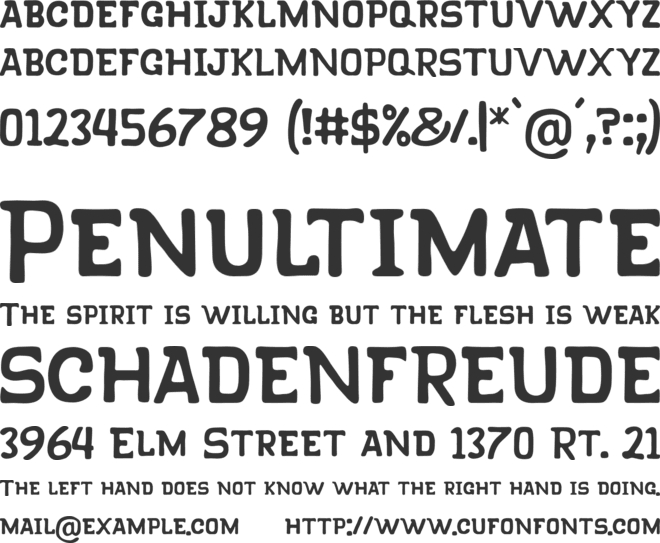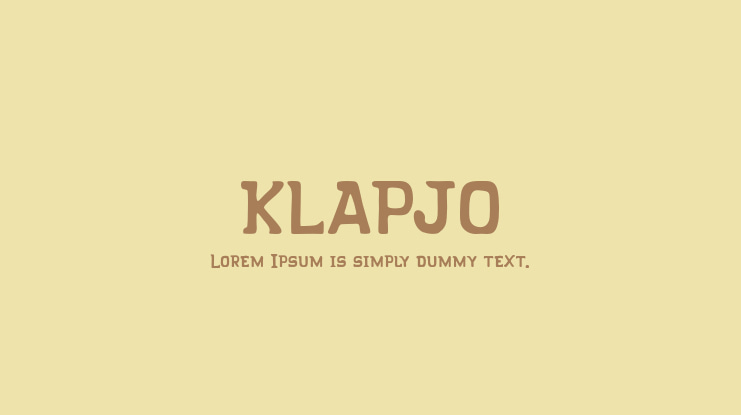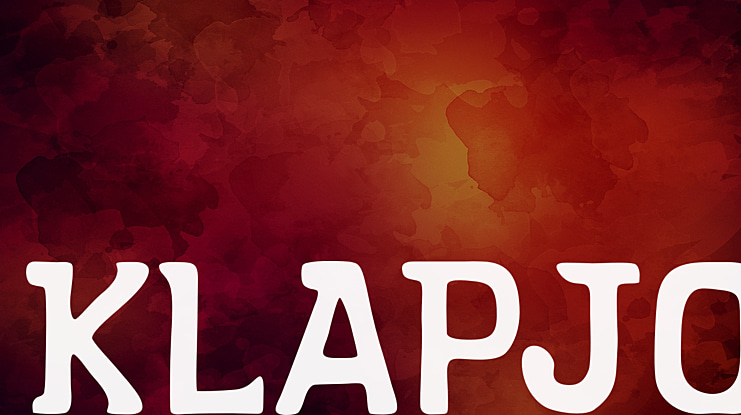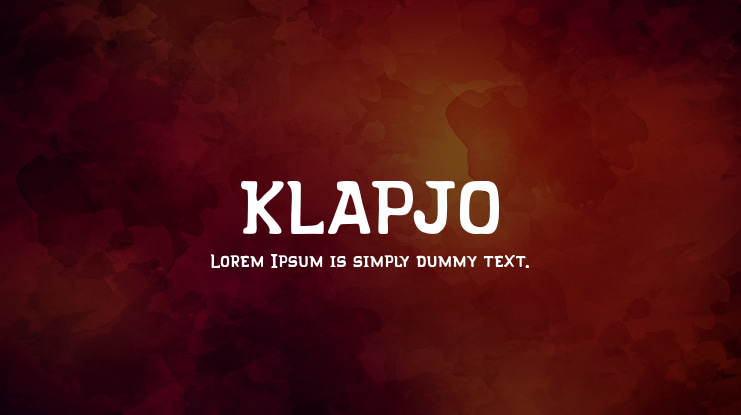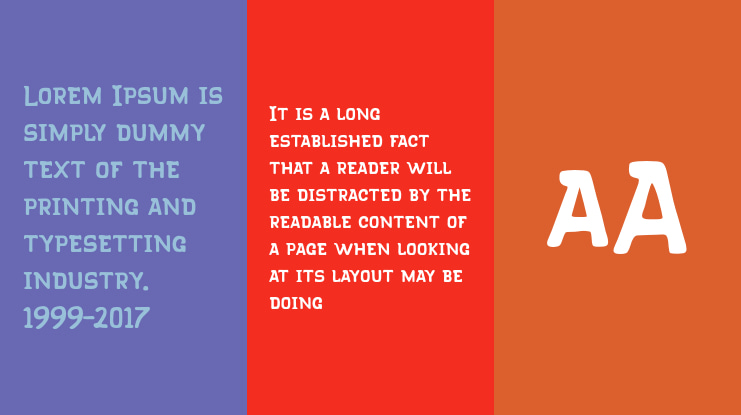
KLAPJO Font Family
Andrian Dehasta, Situjuh Nazara
Kapjo, designed by Andrian Dehasta & Situjuh Nazara, is a dapper slab serif font, handmade with delicate attention to detail.
This font looks great standalone or combined with other fonts for well executed display designs.